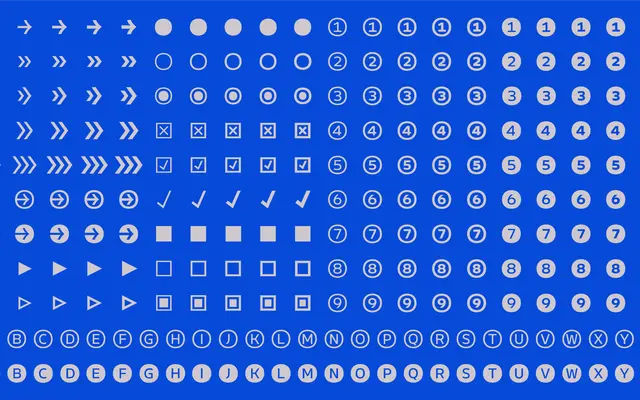
Brisbane
Leinster Type · Troy Leinster · 2012
An economically proportioned humanist sans by Troy Leinster, built for text legibility and wayfinding, with a strong OpenType feature set including arrows and location markers.
Ten styles span five weights from Light to Bold with companion italics, and a variable font version allows fine-grained weight adjustment. Open forms and a generous x-height aid legibility at small sizes and at distance, making it appropriate for signage, software interfaces and editorial text alike. The OpenType feature set goes beyond the usual alternates to include circled figures, circled arrows, chevrons and location markers, giving it practical utility for civic and wayfinding contexts.
Explicitly described as a humanist sans serif, with open forms, generous x-height and low contrast characteristic of the humanist tradition, suited to text and wayfinding applications.